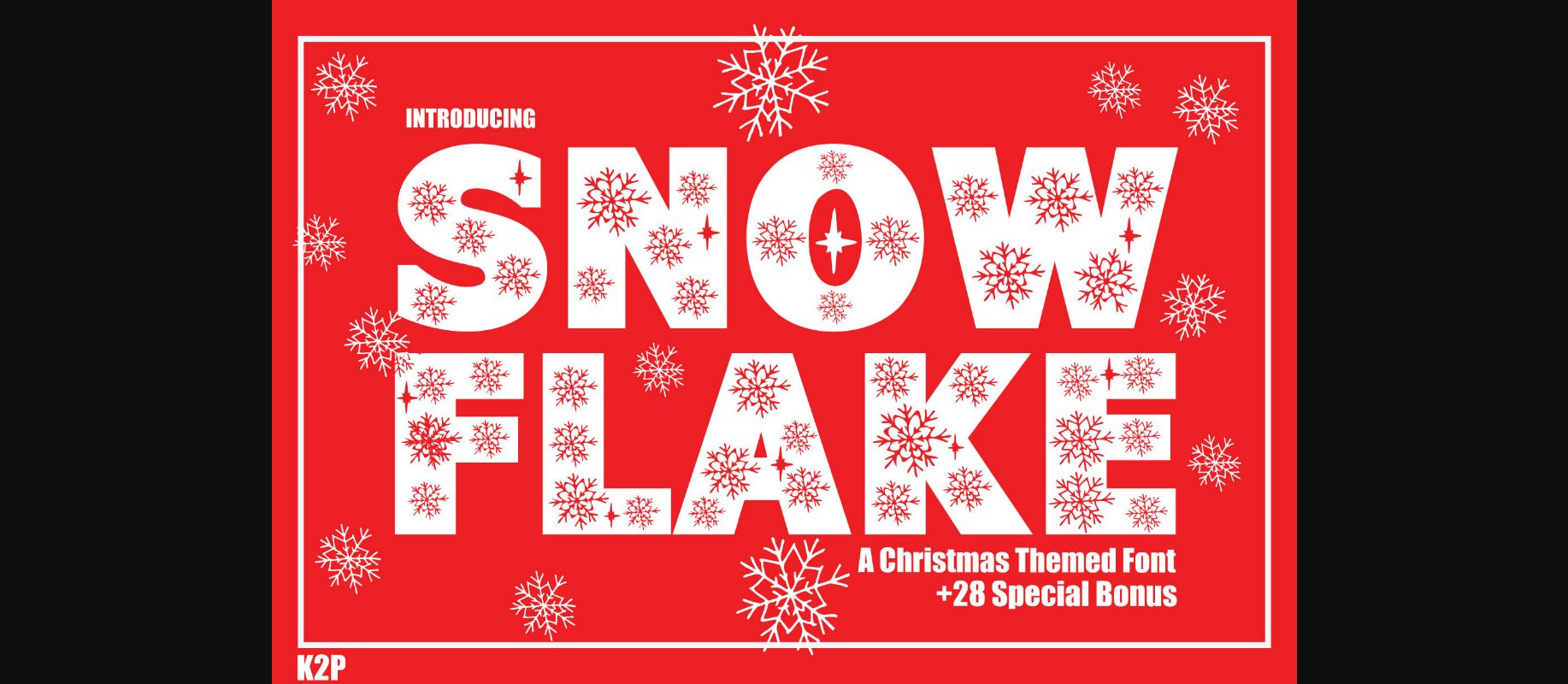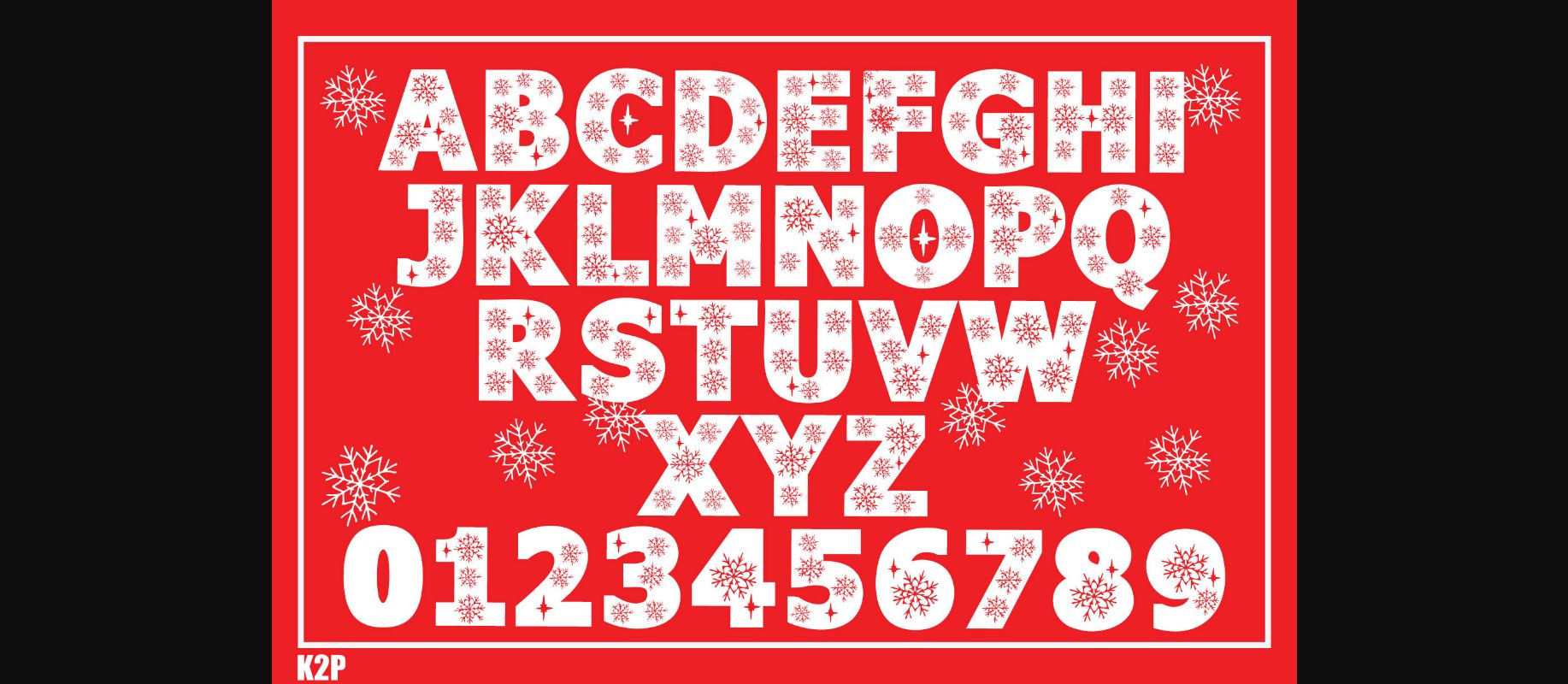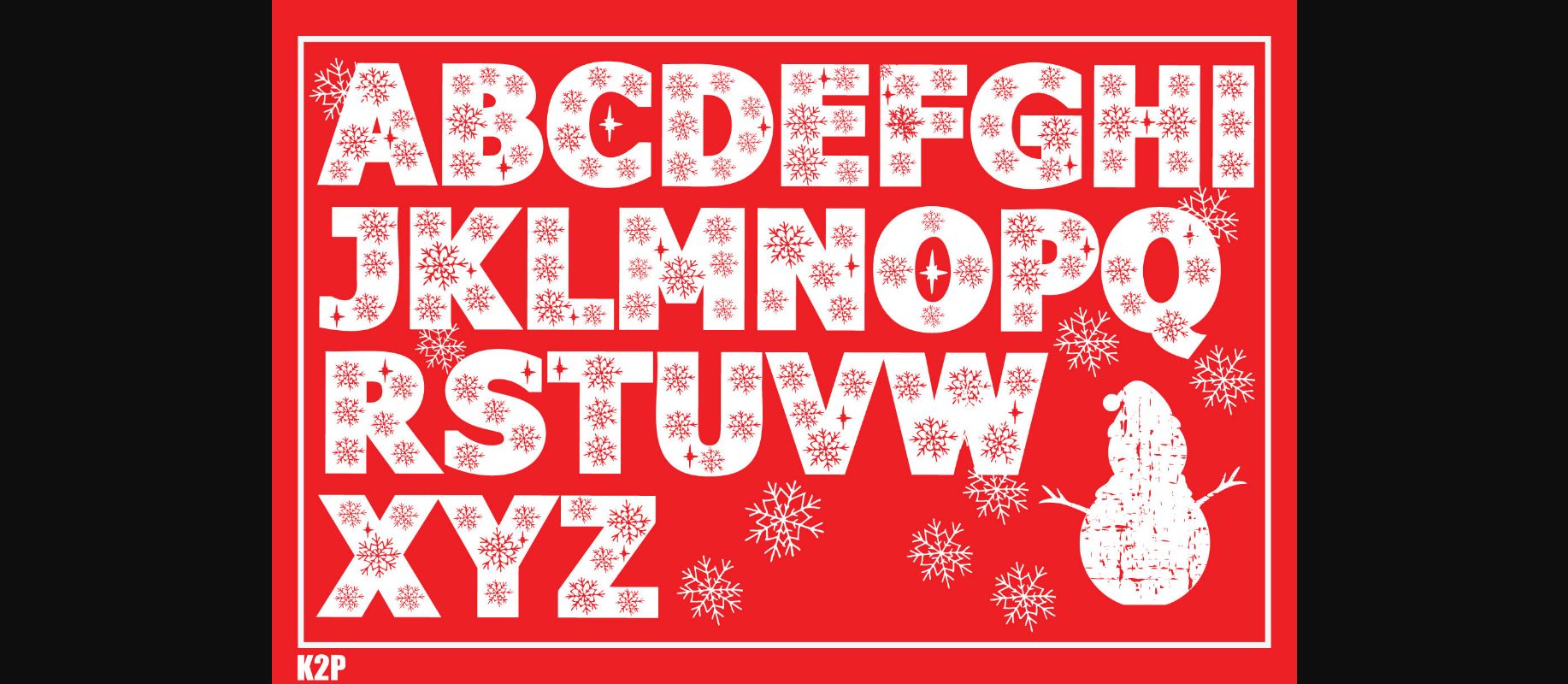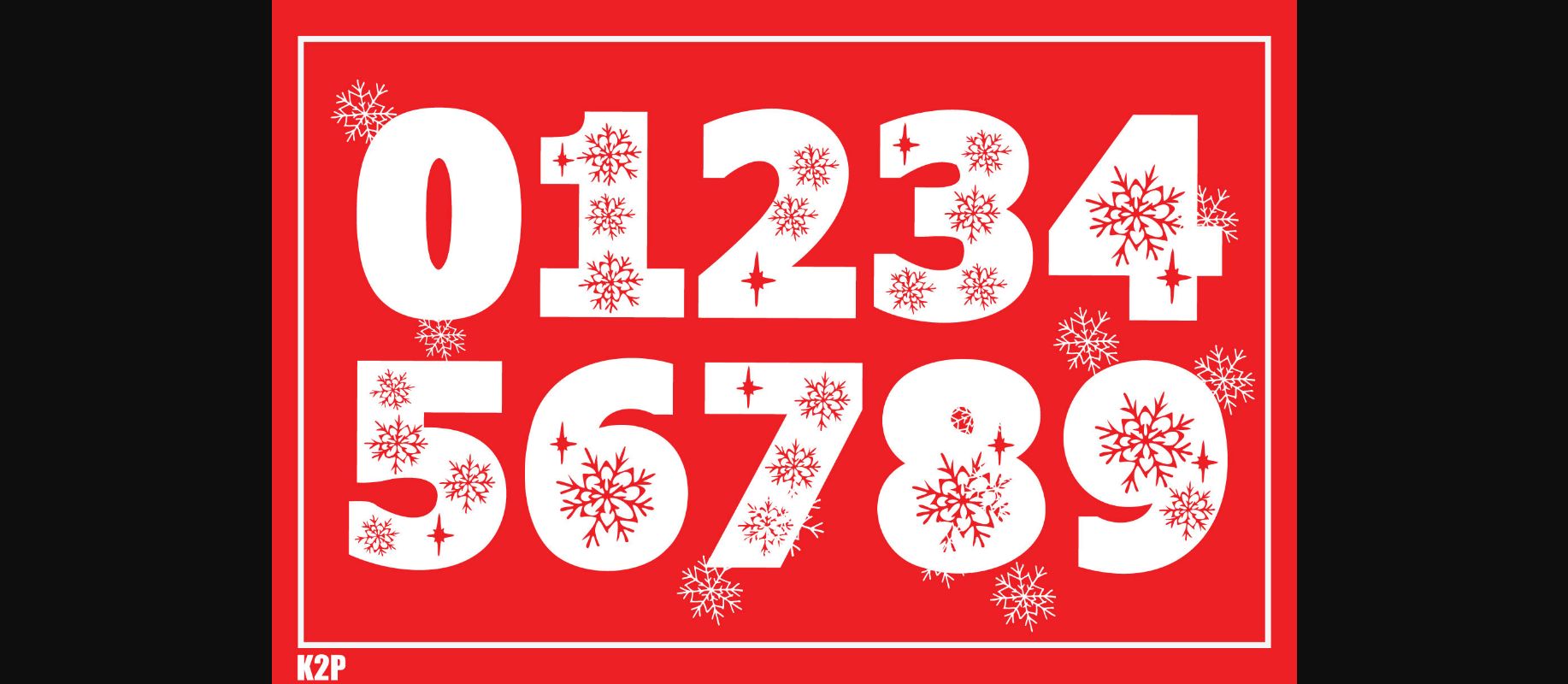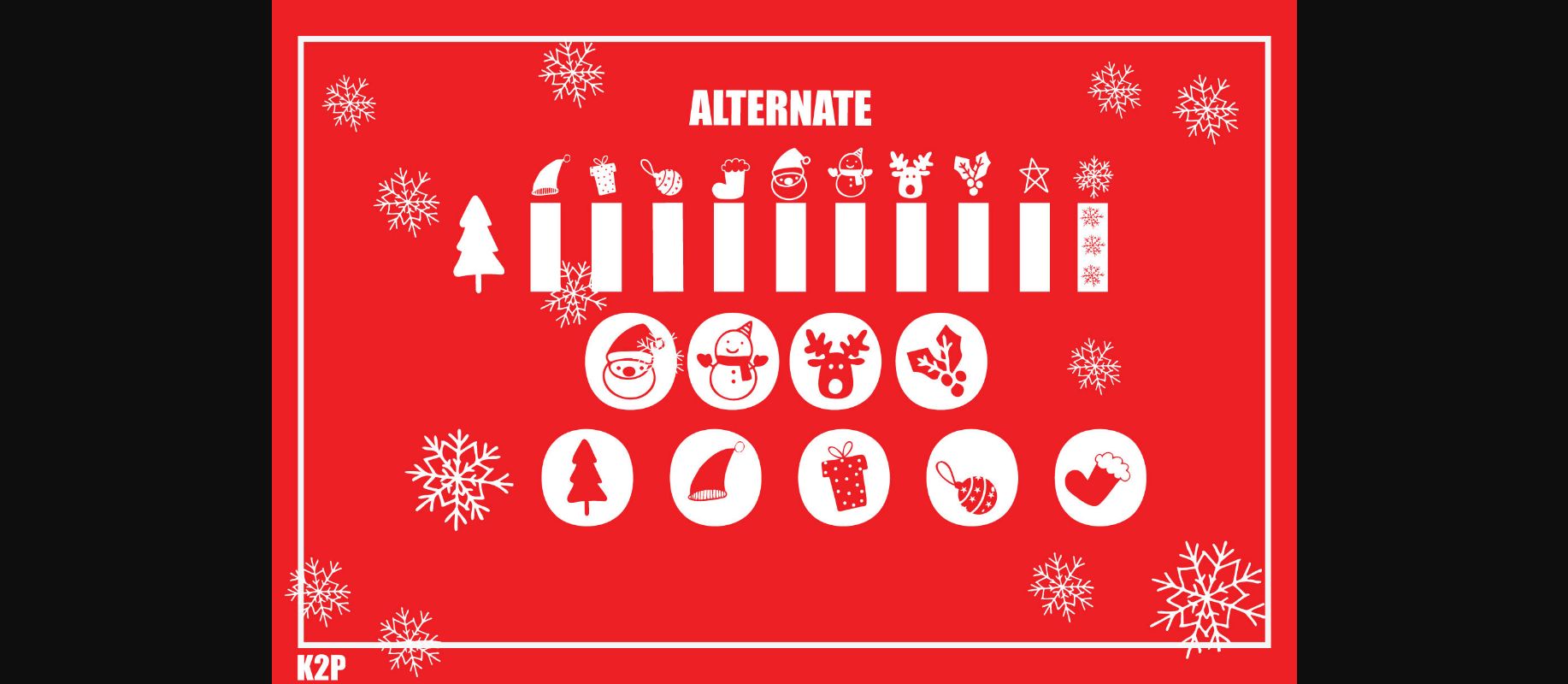
Snowflake Font
About Snowflake Font
Snowflake is a thick lettered and incredibly unique decorative font. It can be used for various design ideas, particularly those related to the Christmas holiday. This font is PUA encoded which means you can access all of the glyphs and swashes with ease!